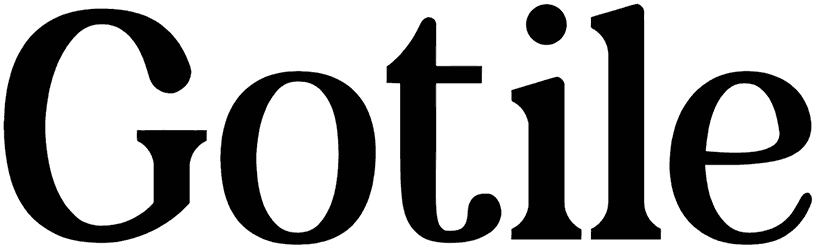
Gotile Font
How can you display the original form better than modern and stylish writing? Gotile, as a basic font, is able to provide this chance and design the texts that you want without any doubt. To make sure this item is what you lack, set it on your new projects, such as logos, business cards, or others, and watch the ideal outcomes.